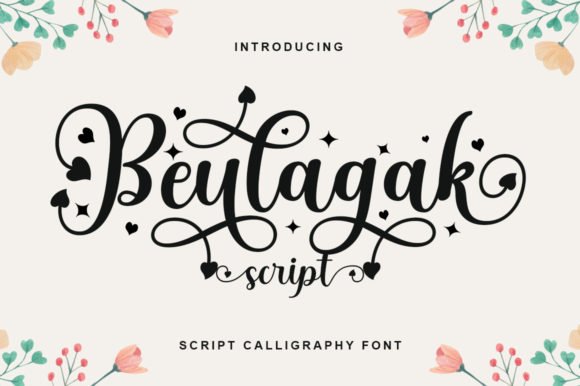
Introduction to Beulagak Script Font
Beulagak Script is a cute, elegant and unique handwritten font.
Expertly designed to be a true favourite, this font has the potential to take your creative ideas to the highest level This font is PUA encoded which means you can access all the glyphs and sweeps easily.
Key Features of Beulagak Script Font